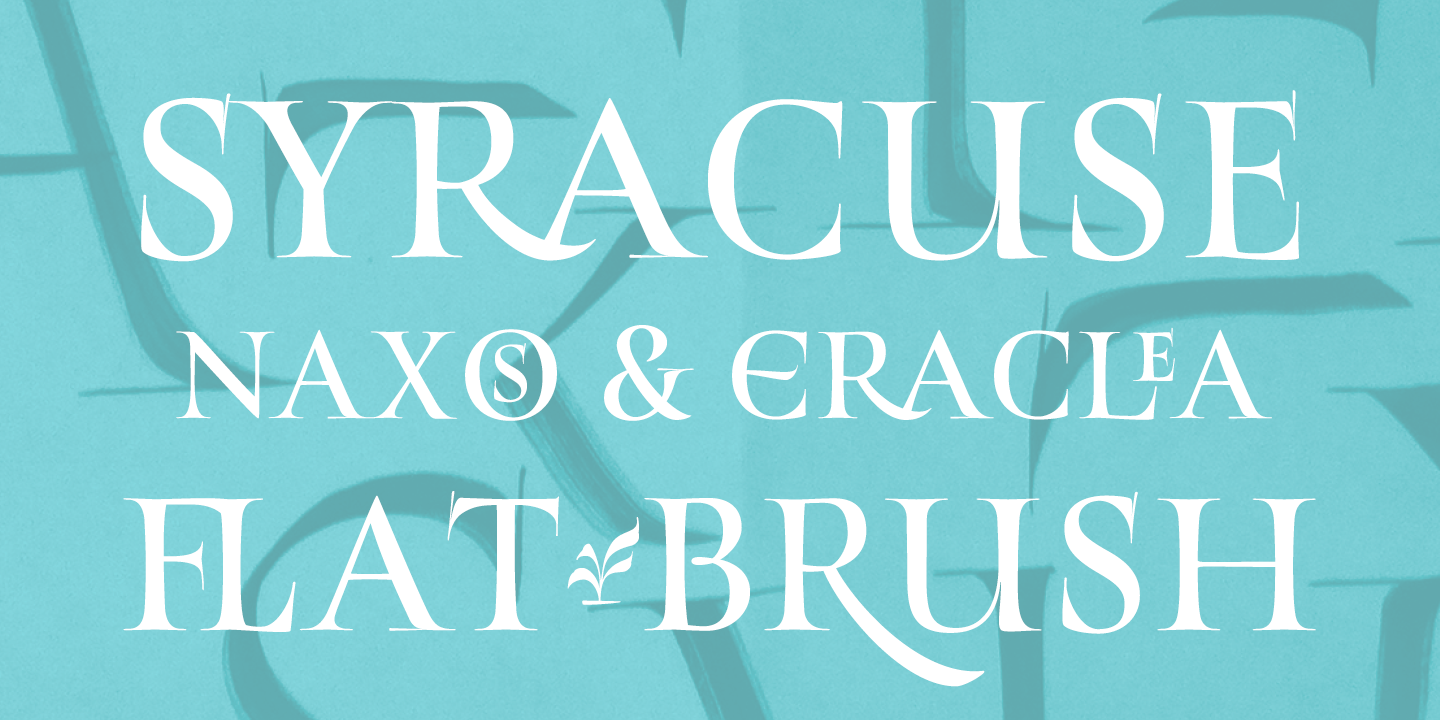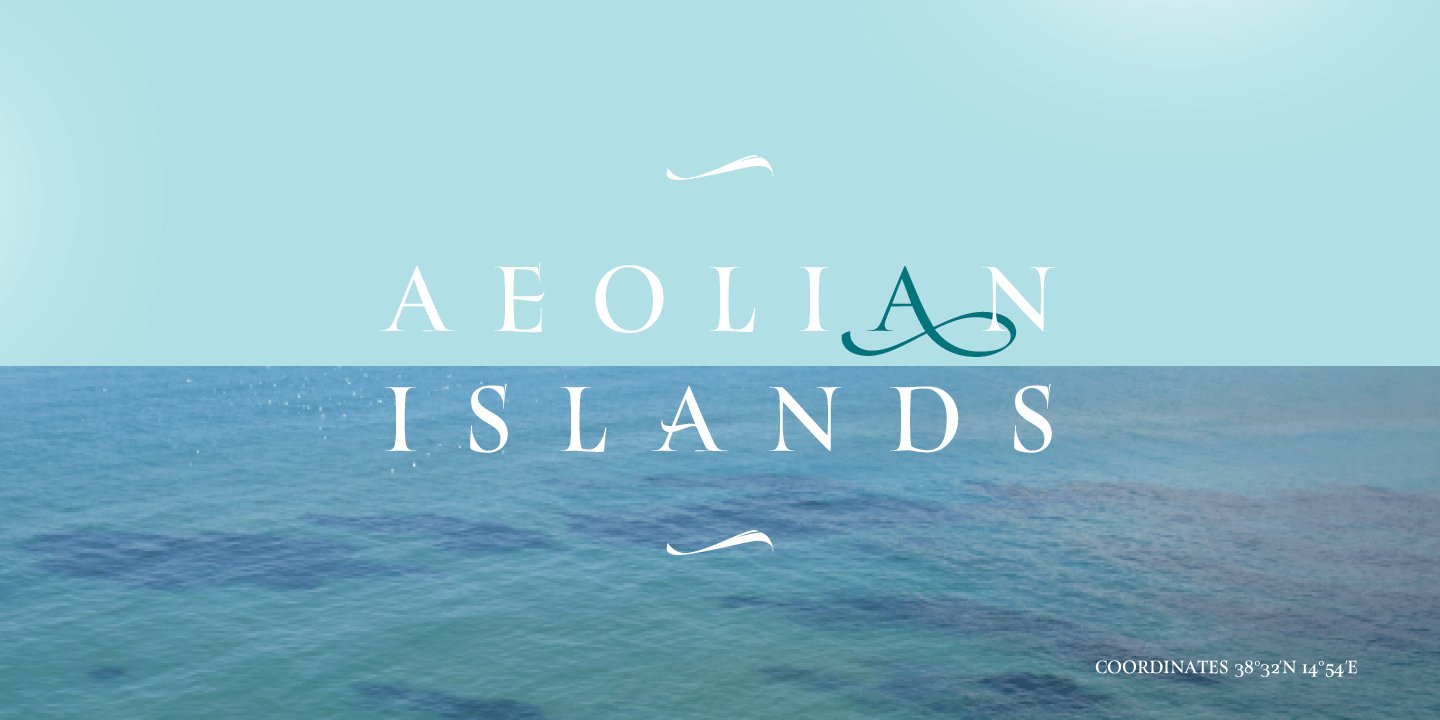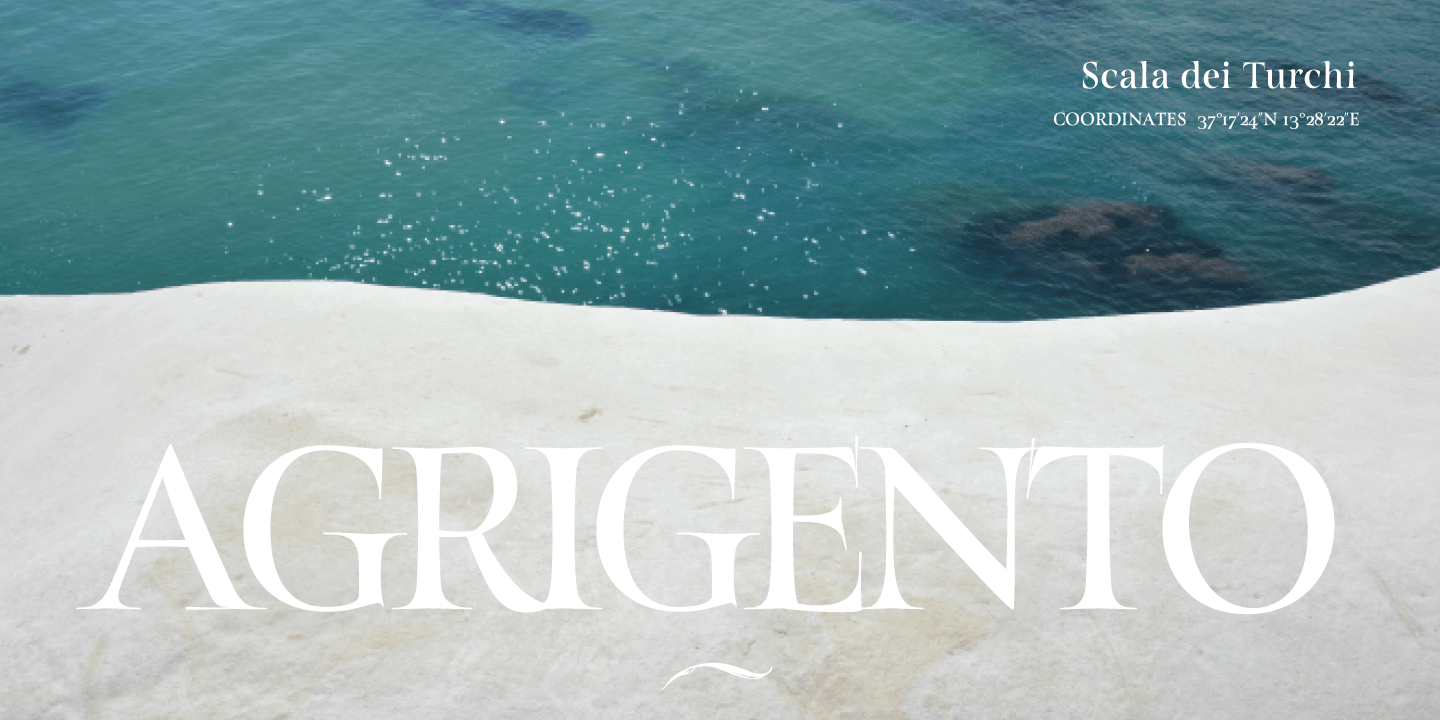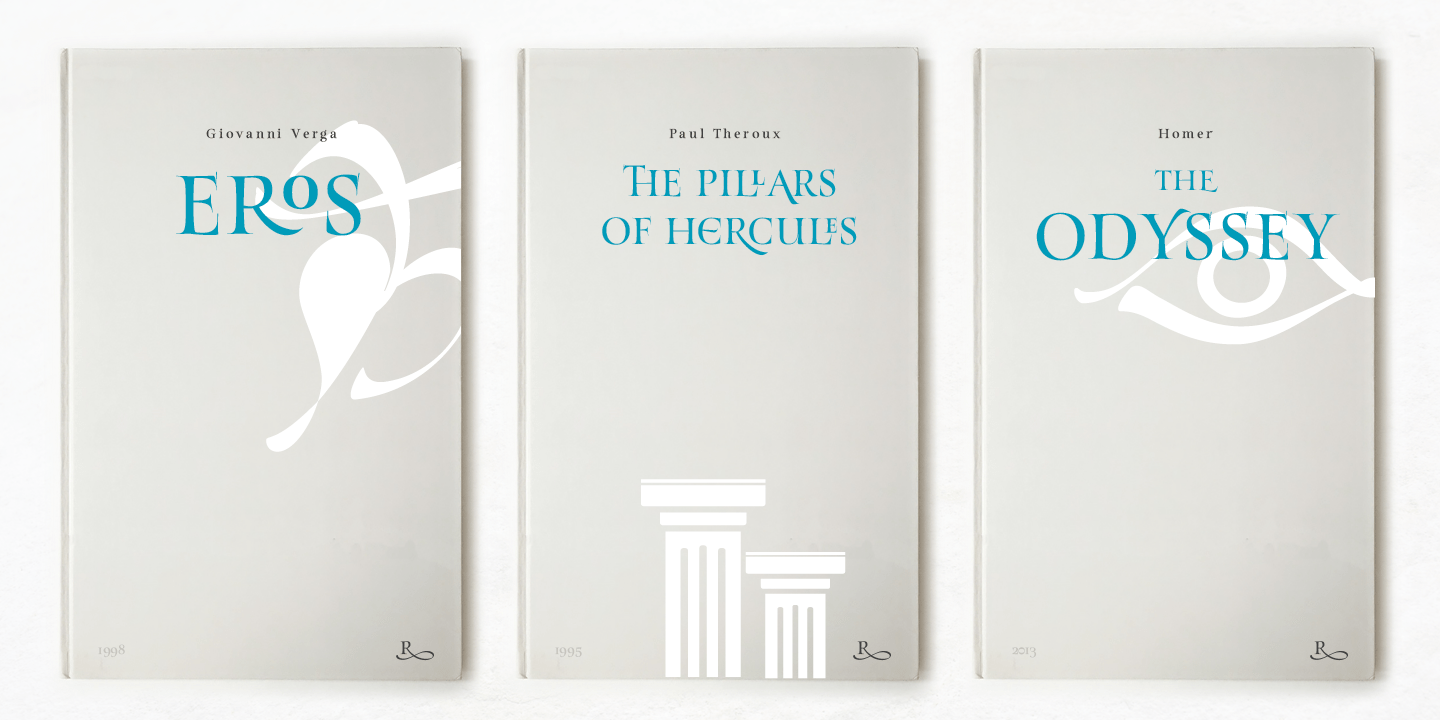
About Turquoise
Our goal was to design Roman Capitals that were smoothly designed with a brush, not carved. The main idea was based on the fundamental brush strokes that are commonly studied when you practice Romans. That\’s why many Serifs have these unfinished terminals.…